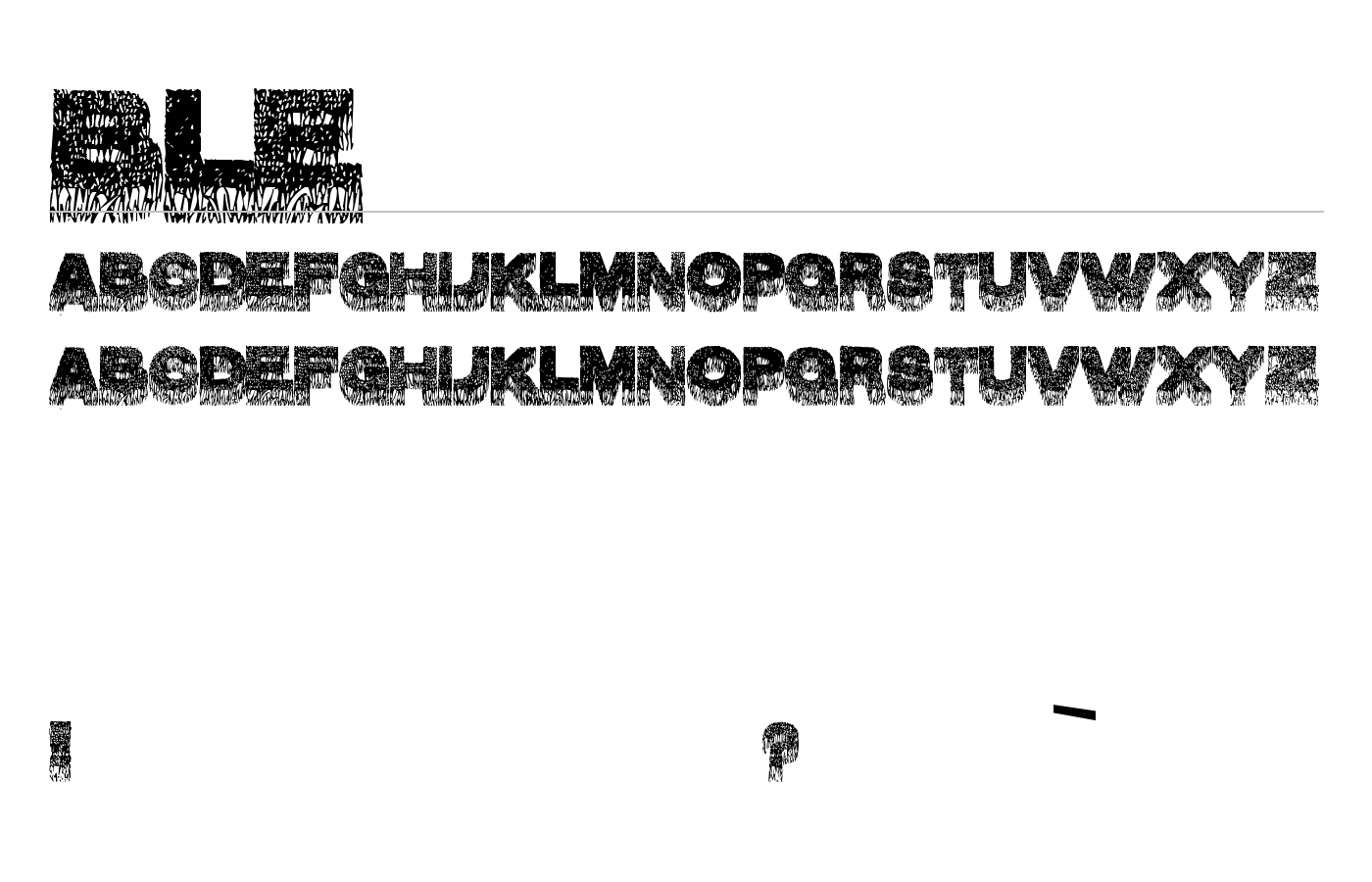
Ble Font is a bold, uppercase display typeface with a distressed, textured appearance that gives the effect of rough, uneven edges fading out at the bottom. Its strong, condensed letterforms combined with the grunge-style finish evoke a gritty, urban vibe, making it ideal for eye-catching headlines, posters, and designs that want to convey an edgy, rebellious personality. This font works well in creative branding and artistic projects that seek to stand out with a raw, tactile feel.